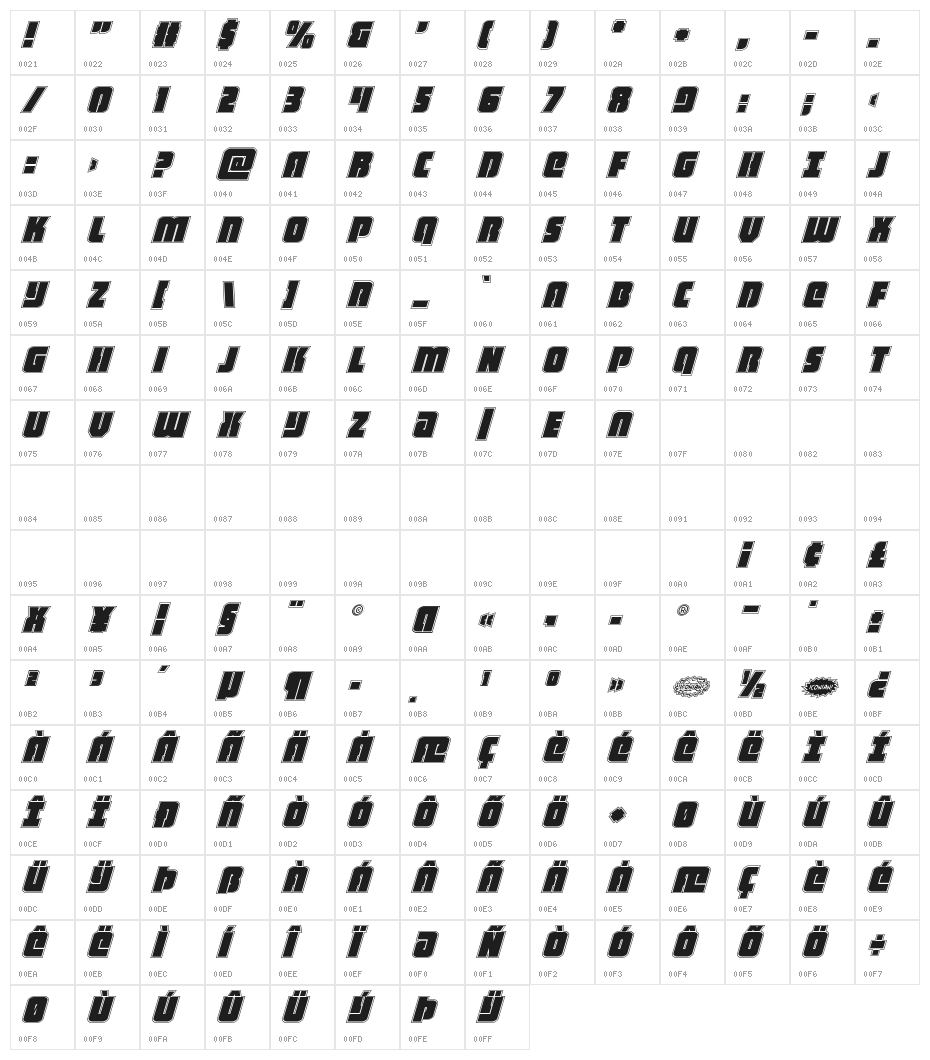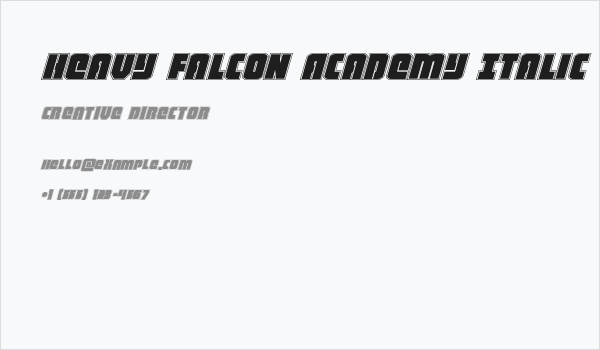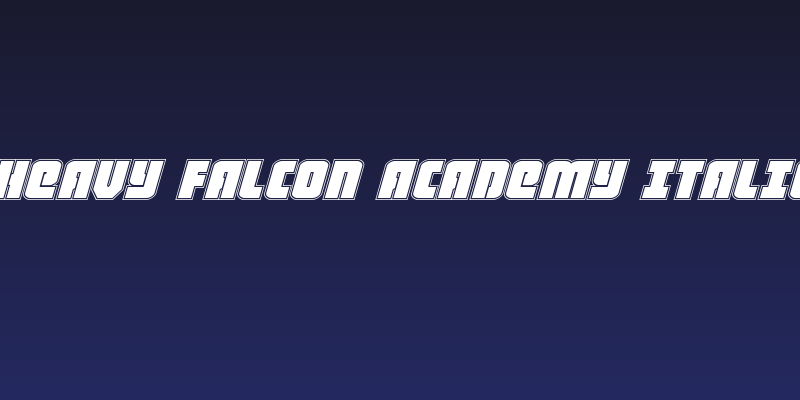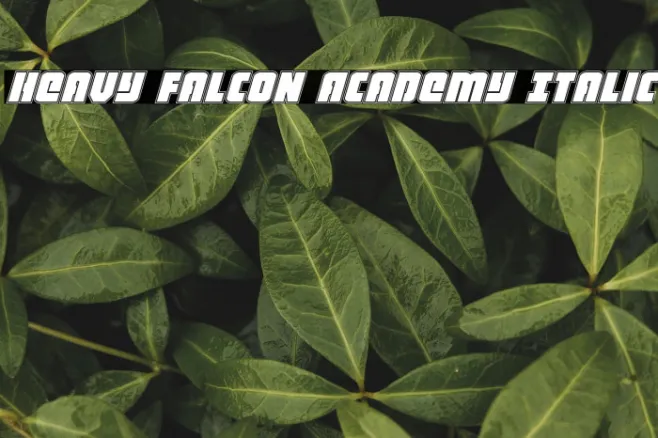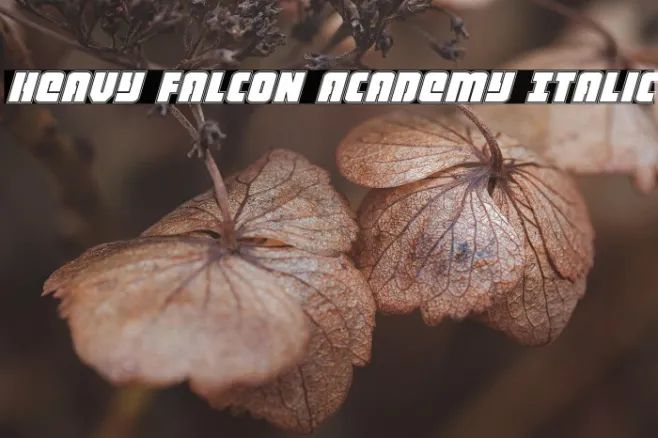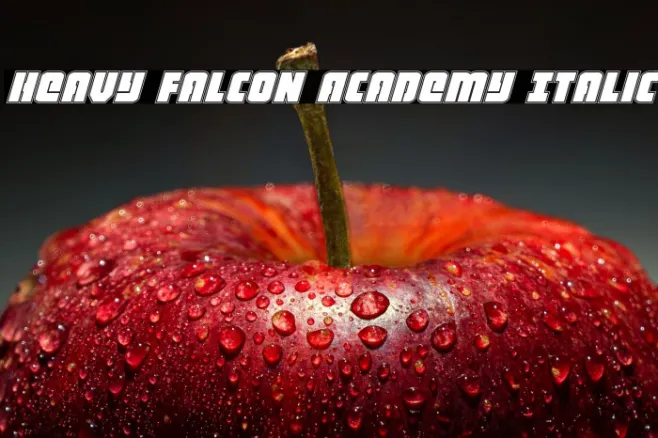
Heavy Falcon Academy Italic Font
Heavy Falcon Academy Italic Description
This font features a bold and dynamic style with a strong presence. The characters are designed with a heavy weight and italic slant, giving them a sense of motion and energy. The letters have a blocky, geometric structure with sharp angles and clean lines, making them highly legible and impactful. The font includes both uppercase and lowercase letters, numerals, and a range of special characters. Its boldness and unique style make it suitable for attention-grabbing headlines and designs that require a modern and assertive look.